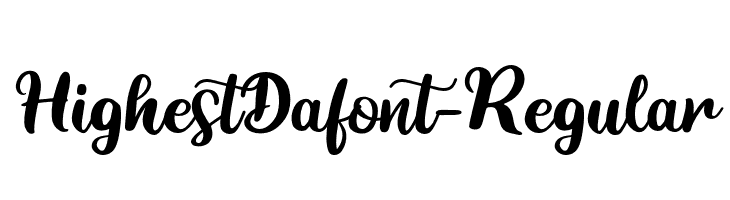
An elegant, cursive font with intricate flourishes and a handwritten style.
A playful, casual handwritten script with flowing, connected letters.
A modern, elegant script font with a playful, handwritten style.
A playful and elegant script font with a handwritten style.
A bold, expressive script font with fluid, connected letterforms.
A bold, flowing script font with elegant, interconnected characters.
A whimsical and elegant script font with flowing, interconnected letterforms.
A bold, playful script font with smooth, flowing strokes and a lively handwritten style.
An elegant, flowing script font with a sophisticated, handwritten style.
An elegant script font with flowing, cursive letters and intricate flourishes.